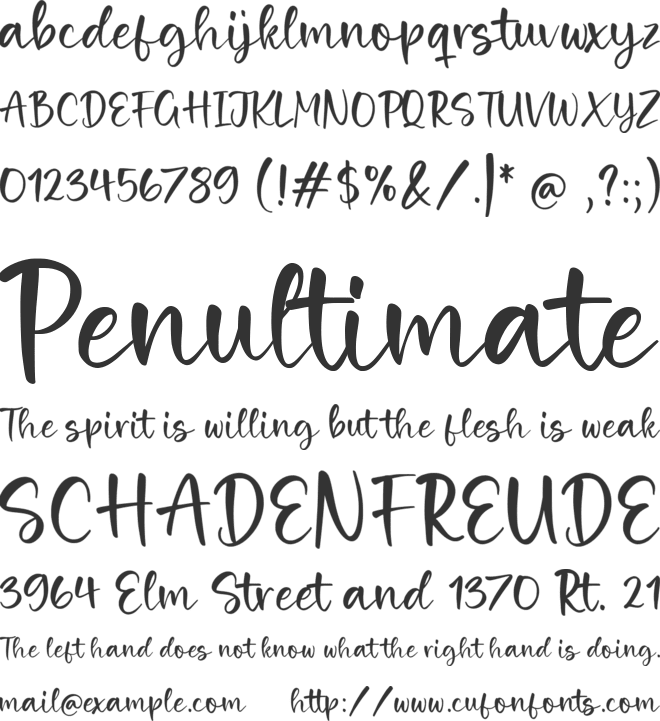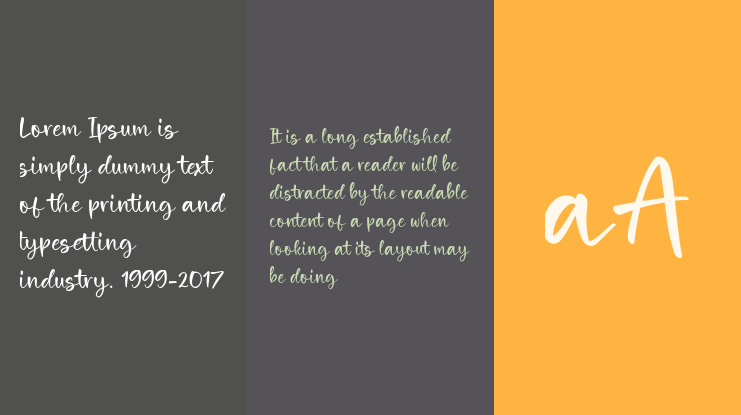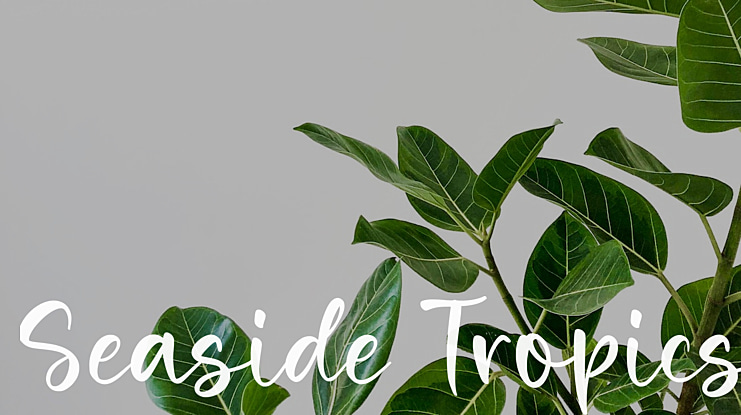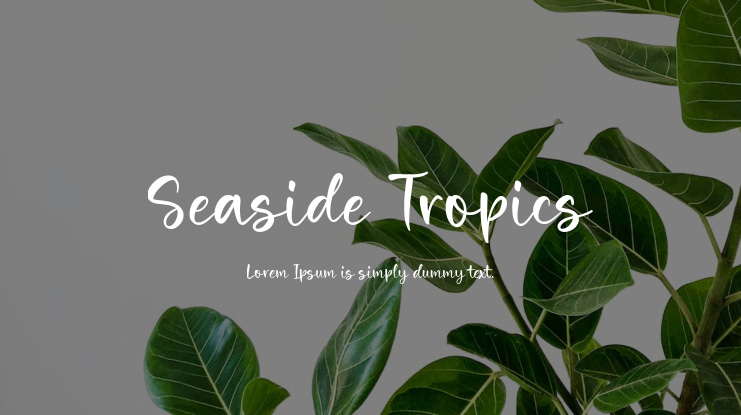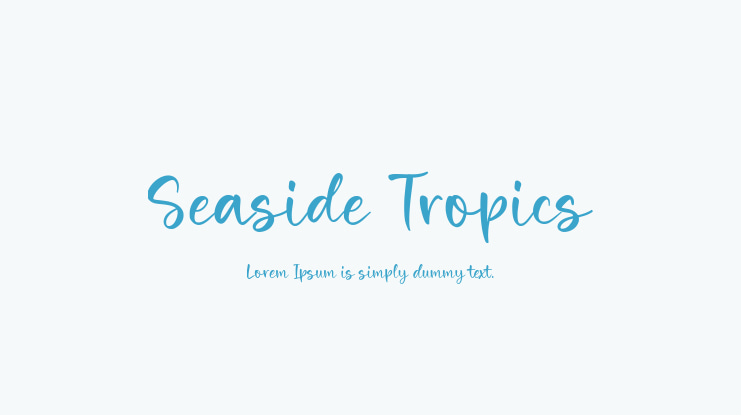
Seaside Tropics Font
Presenting Seaside Tropics, a contemporary calligraphy font brought to you by Balpirick Studio. This font is designed to add a personal and unique touch to all your design projects.
With its natural and organic feel, this font has a distinct character that sets it apart. Meticulously crafted with attention to detail, Seaside Tropics is an incredibly versatile font that can be used for various design needs.
Whether you are working on logos, branding materials, invitations, or any other design project, this modern handwritten font will leave a lasting impact. Its stylish and distinctive appearance adds a touch of elegance to any composition.